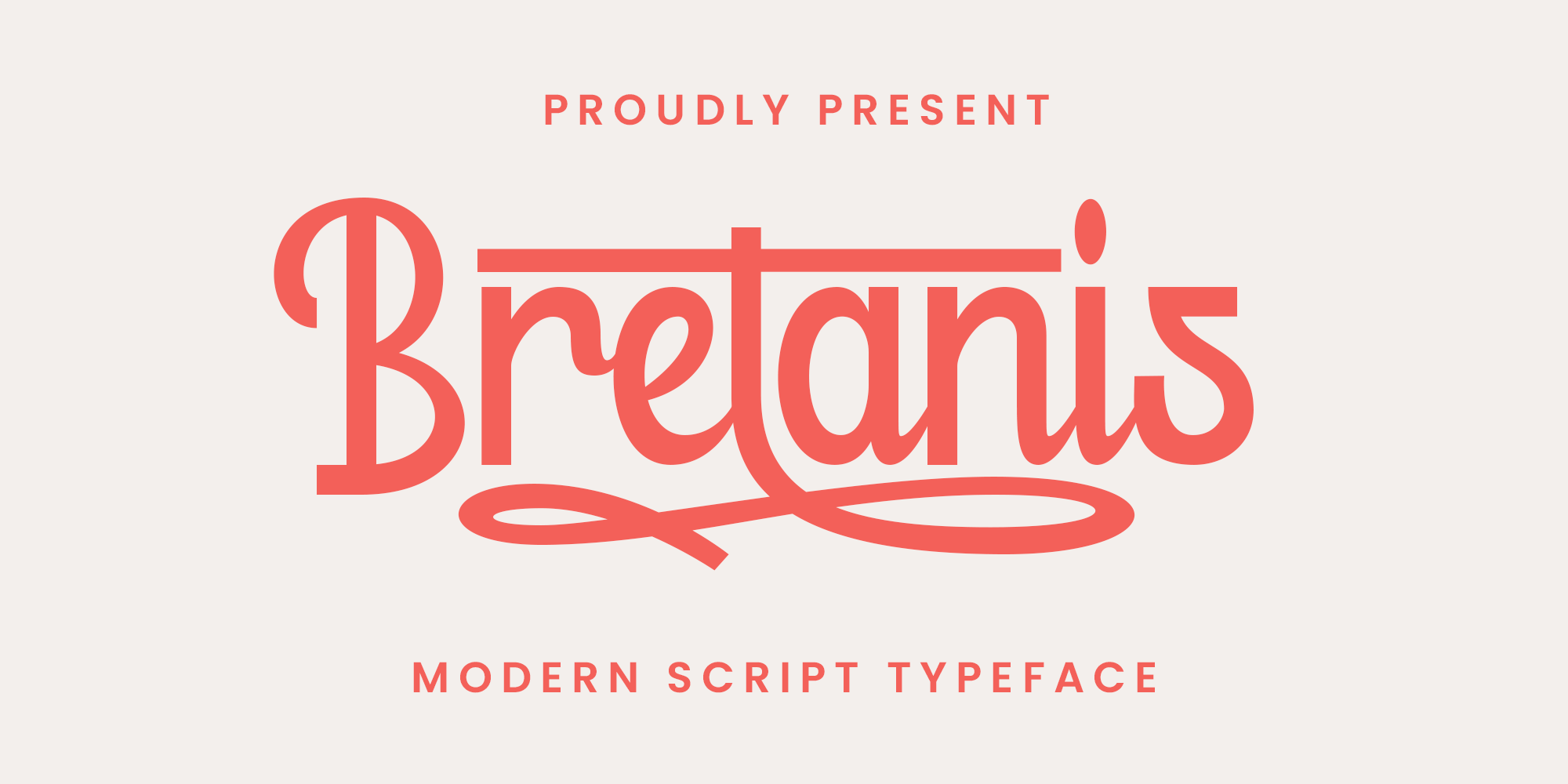
Bretanis Font excels in elegant wedding invitations, premium brand identities, sophisticated magazine headers, luxury hotel branding, upscale restaurant menus, high-end fashion campaigns, exclusive event announcements, boutique product packaging, corporate identity systems, and refined editorial design layouts.
Bretanis Font is exciting because it masterfully combines classical typography traditions with contemporary design sensibilities, featuring graceful letterforms that exude sophistication and timeless appeal while maintaining exceptional readability across all applications. This distinguished typeface represents the perfect fusion of heritage craftsmanship and modern functionality, making it an invaluable asset for designers seeking to create memorable and prestigious visual communications.
The Bretanis Font family encompasses comprehensive variations including Regular, Bold, Light, Medium, SemiBold, Italic styles, Condensed formats, Extended versions, Script alternatives, and elegant decorative elements, providing complete typographic flexibility for any sophisticated design challenge.
Bretanis Font stands as a testament to refined typography, delivering unmatched elegance for projects that demand the highest level of visual sophistication. Its distinctive character architecture makes it particularly effective for luxury brands and premium services seeking to establish an authoritative yet approachable market presence.
The refined beauty of Bretanis Font makes it ideal for luxury real estate agencies, high-end financial services, prestigious law firms, exclusive private clubs, fine jewelry brands, and premium consulting companies requiring sophisticated visual communication. Its polished letterforms ensure memorable brand recognition among discerning professional audiences.
Bretanis Font's advanced OpenType features include stylistic alternates, professional ligatures, contextual characters, and precision kerning that enhance typographic excellence. These sophisticated capabilities enable designers to create compelling layouts that resonate with upscale target demographics and professional audiences.
The versatility of Bretanis Font extends seamlessly from traditional print materials to modern digital platforms, including premium websites, luxury mobile applications, high-end social media campaigns, and exclusive digital publications. Its scalable design maintains crisp sophistication at every resolution.
For design professionals pursuing typographic excellence in premium markets, Bretanis Font delivers the perfect balance of classical refinement and contemporary functionality. Its sophisticated appeal combined with technical precision makes it an essential resource for creating memorable visual communications that capture the essence of elegance, professionalism, and timeless design sophistication.